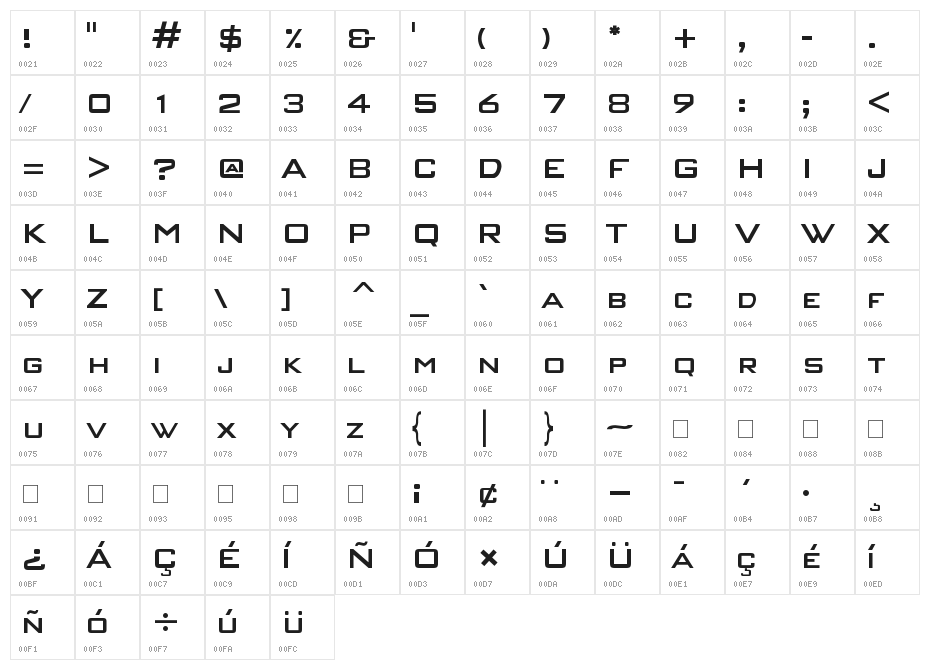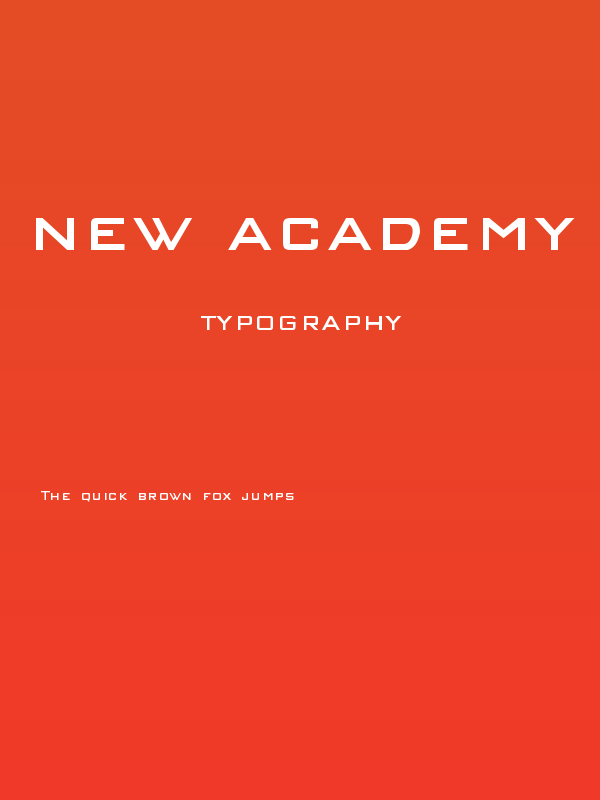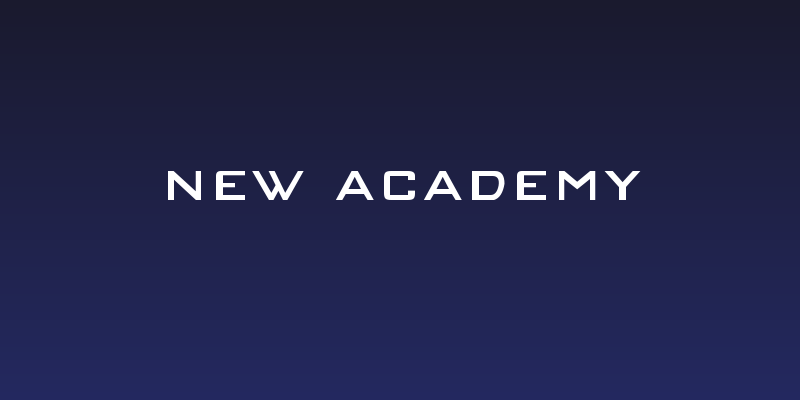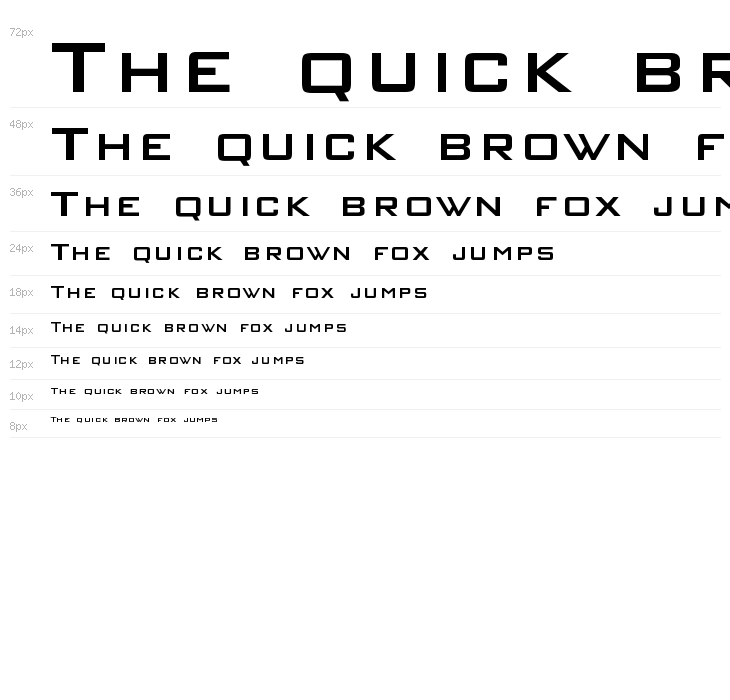
NEW ACADEMY Font
| Anwendungsfall | Headlines, Logos, Branding |
| Vorgeschlagene Projekte | Ideal for branding, headlines, posters, and digital interfaces where a modern and professional look is required. |